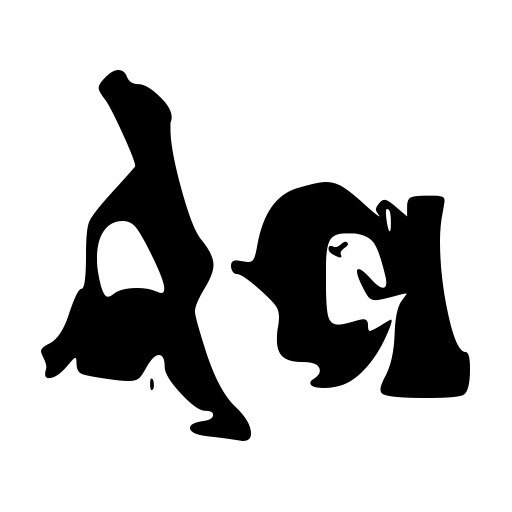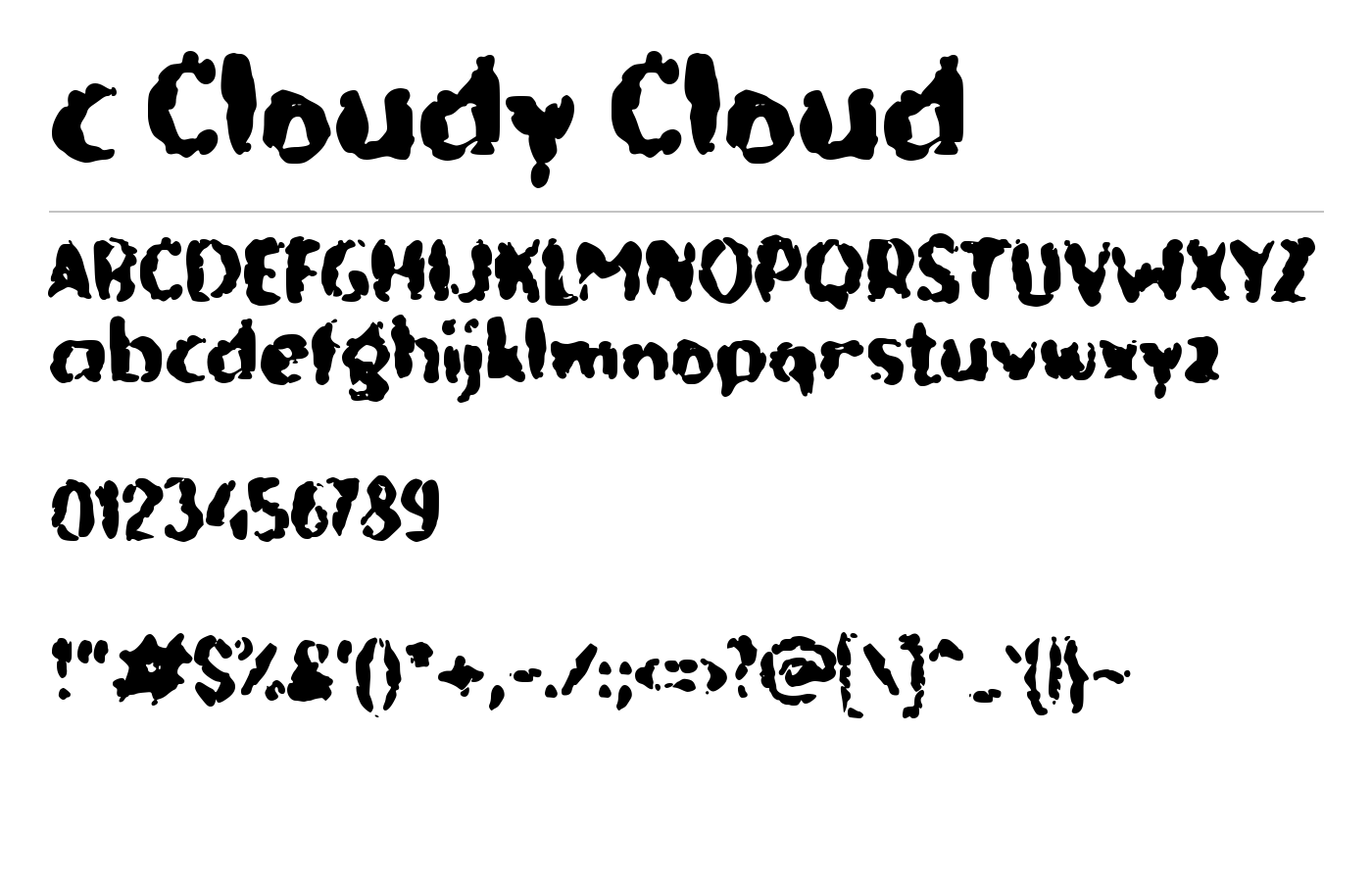
Cloudy Cloud is a playful, bold sans serif font with an irregular, almost bubbly texture that gives it a whimsical and organic feel. Its heavy weight, uneven edges, and quirky letterforms make it ideal for eye-catching headings, creative projects, and designs that want to convey fun and friendliness with a unique handmade vibe. This font works well in children’s books, posters, and casual branding where personality and warmth matter most.
c Cloudy Cloud Font
About c Cloudy Cloud Font